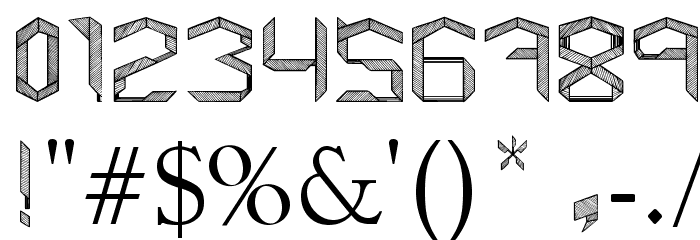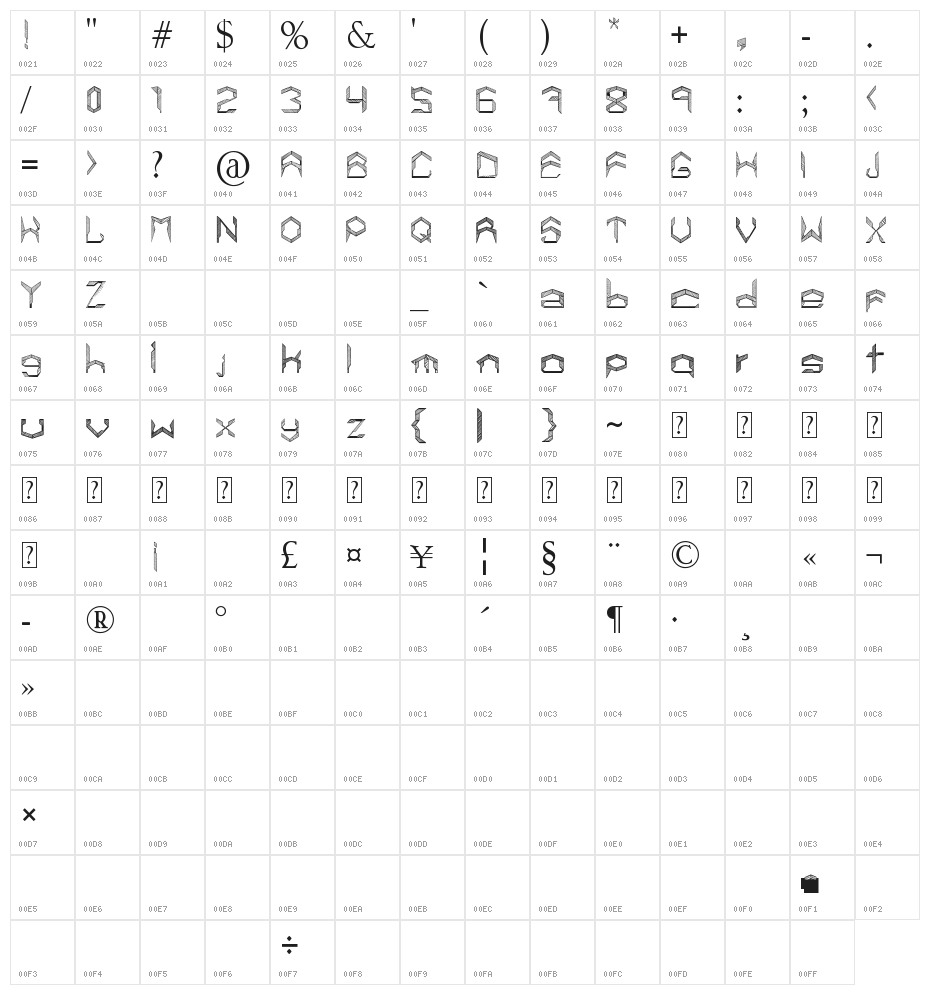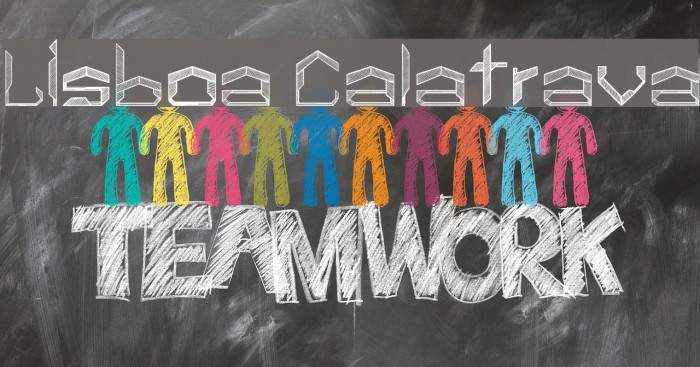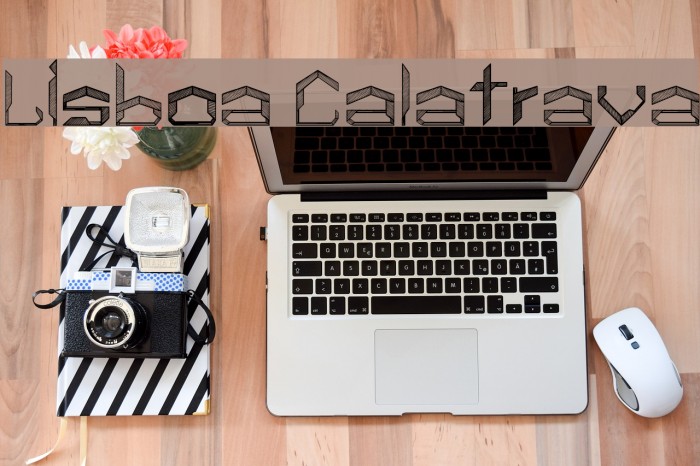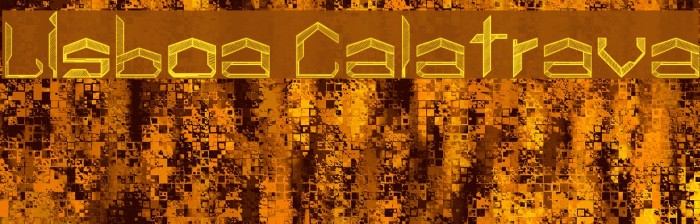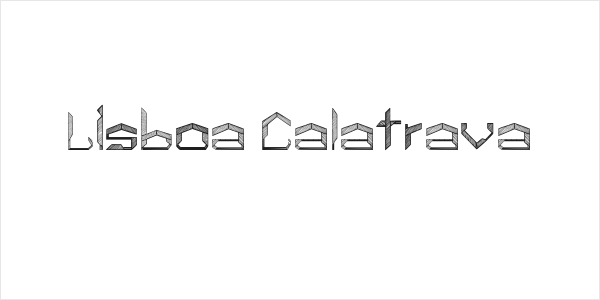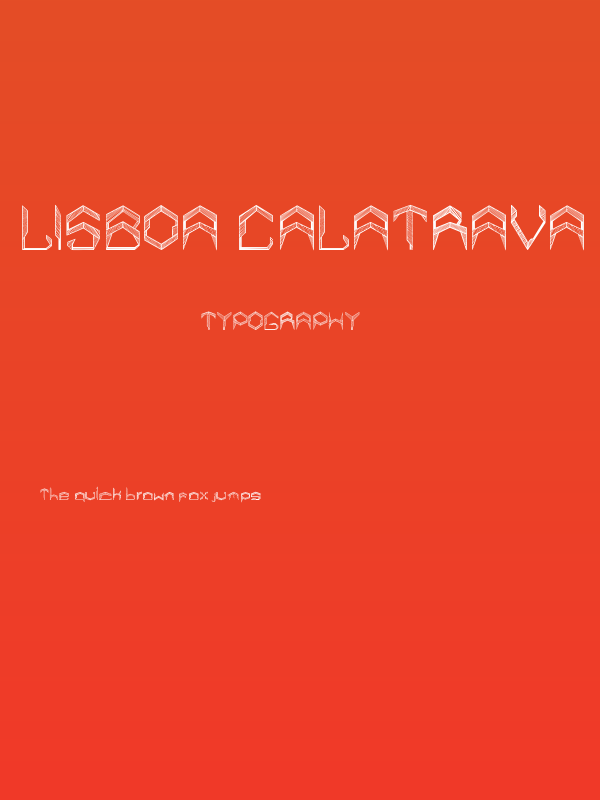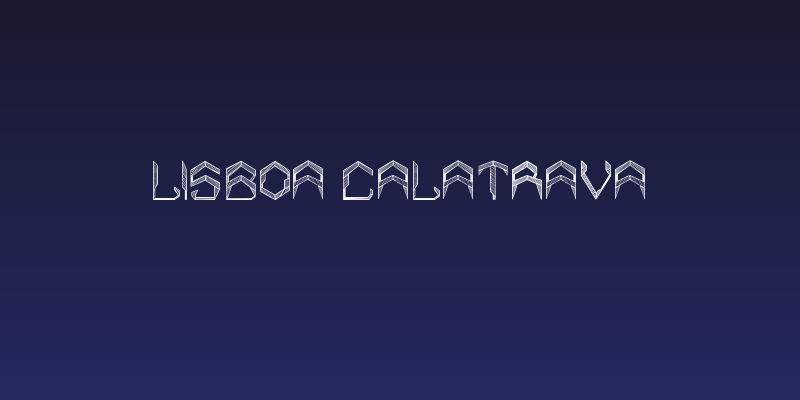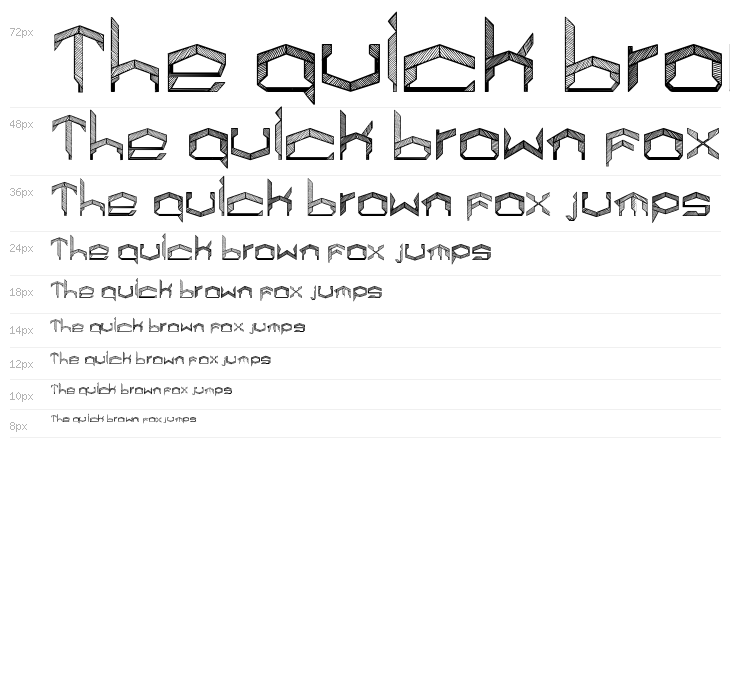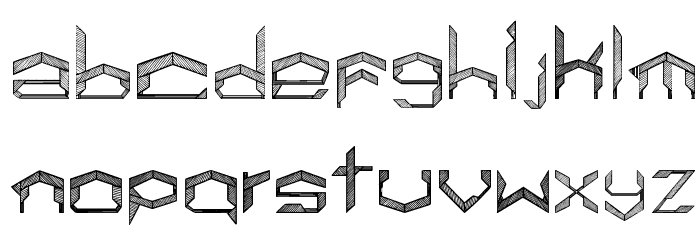
Lisboa Calatrava Font
Lisboa Calatrava Description
This font features a unique, geometric design with a three-dimensional effect, reminiscent of architectural structures. The characters are constructed with angular lines and shaded sections, creating a sense of depth and complexity. Each letter and number appears as if it is crafted from folded paper or metal, giving it a modern and industrial aesthetic. The font maintains a consistent style across uppercase, lowercase, and numeric characters, with special characters also adhering to this distinct design. The overall appearance is bold and striking, making it suitable for projects that require a strong visual impact.
| Proposed Projects | Ideal for architectural branding, modern art posters, and innovative product packaging. |